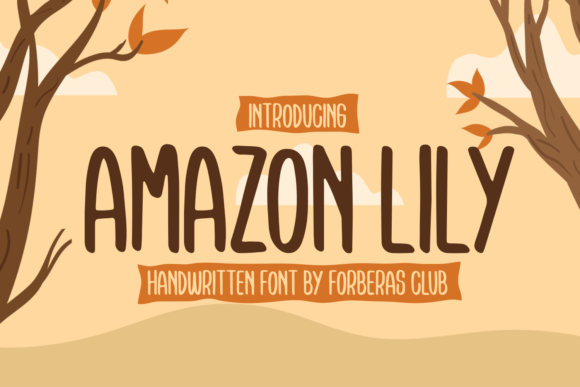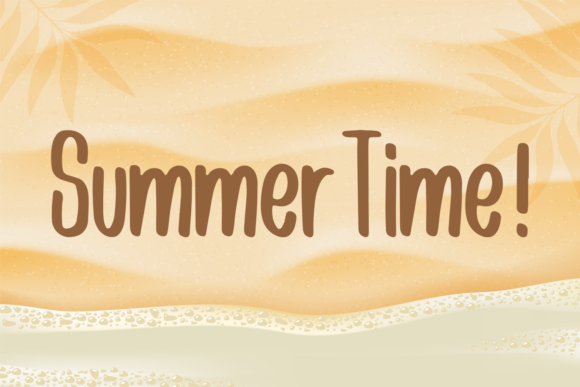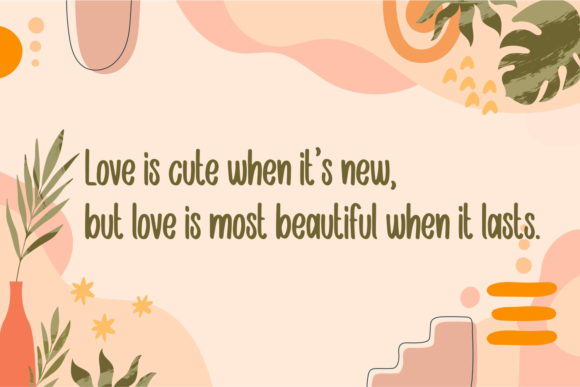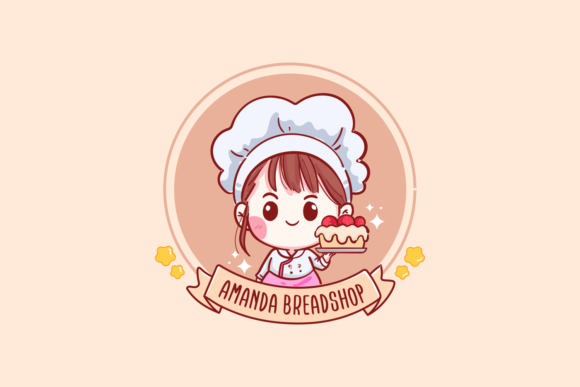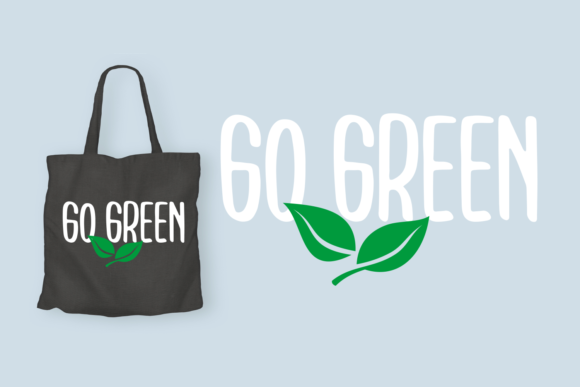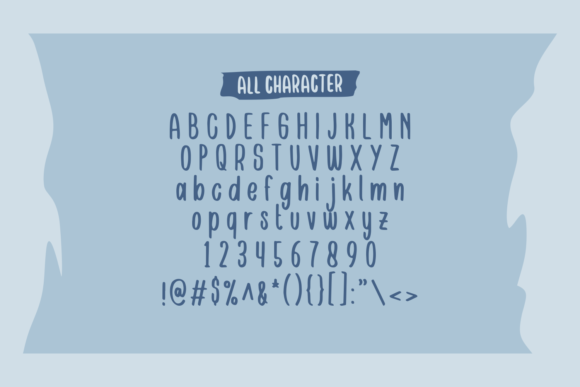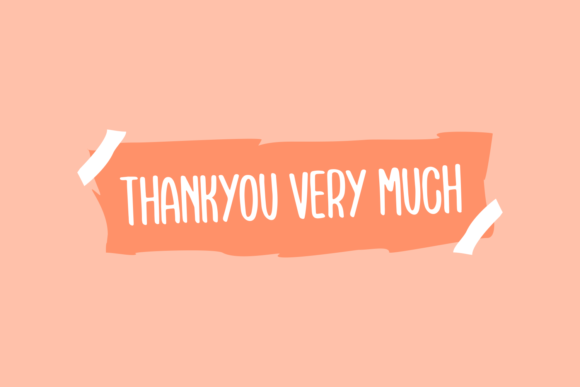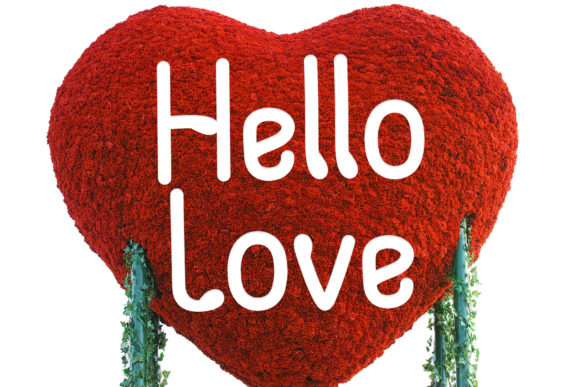
Amazon Lily Font
About Amazon Lily Font
Amazon Lily is a simple and neat handwritten font. Whatever the topic, this font will be a wonderful asset to your font library, as it has the potential to enhance any creation.